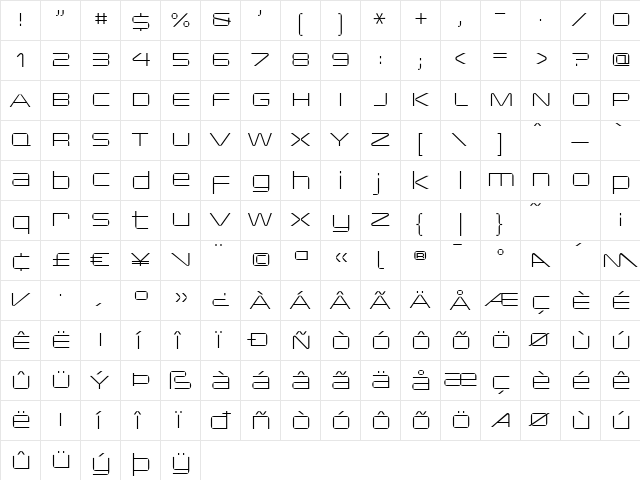
Changeling Light
| Foundry | Mark Simonson |
| Designer | Mark Simonson |
Design Context for Changeling Typeface
Changeling takes a measured approach to typography — its balanced proportions and neutral character make it a reliable workhorse for both digital and print work. Its slender proportions lend an understated elegance to any composition.